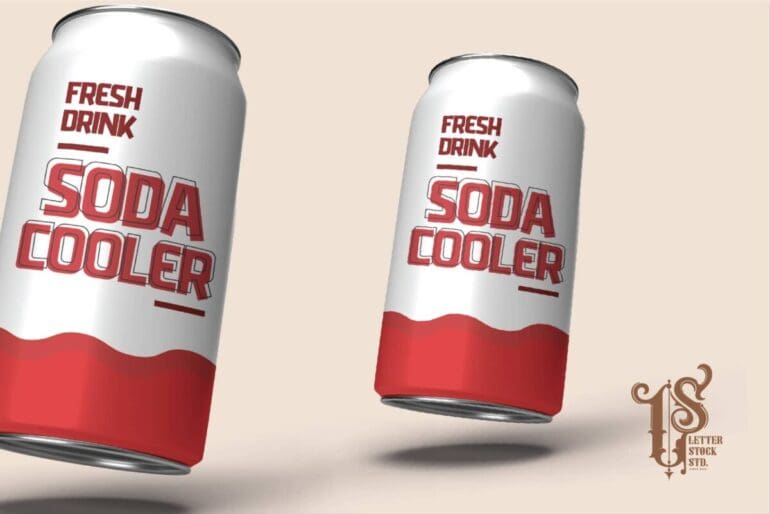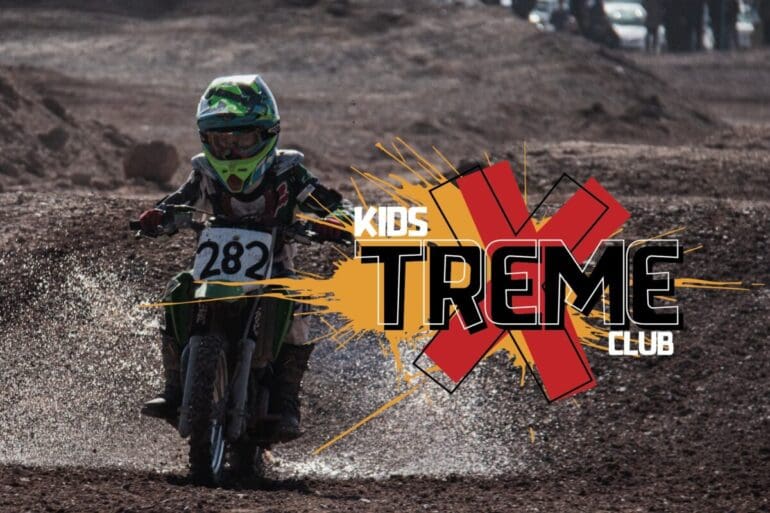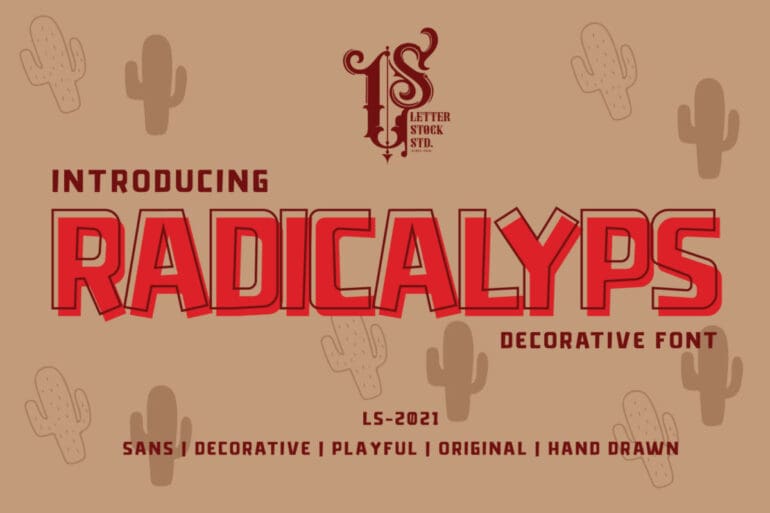
Radicalypse Font
Radicalypse Font. This pair was inspired by some lettering design that I saw on some coffee shop, It was crafted by hand especially to add a natural handmade feeling in its brand identity than I make it clean with pentool. It’s playful typography original hand drawing.